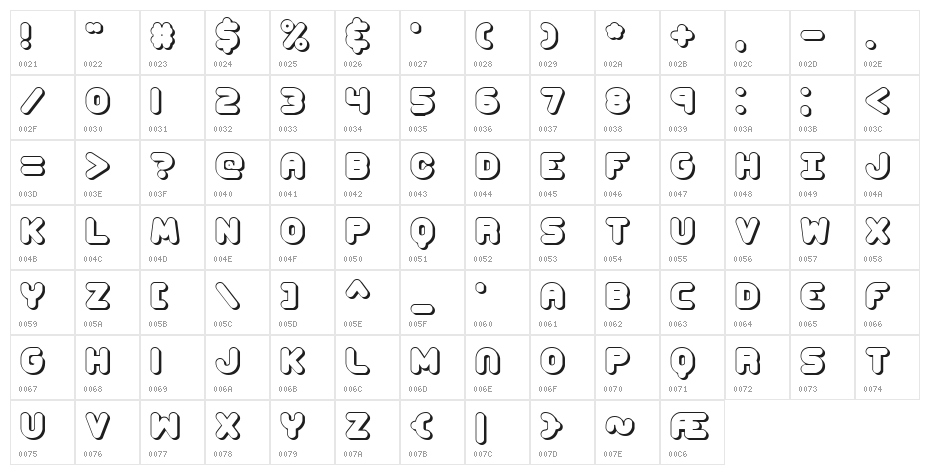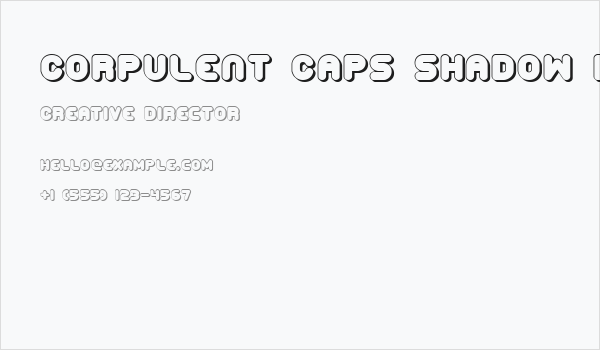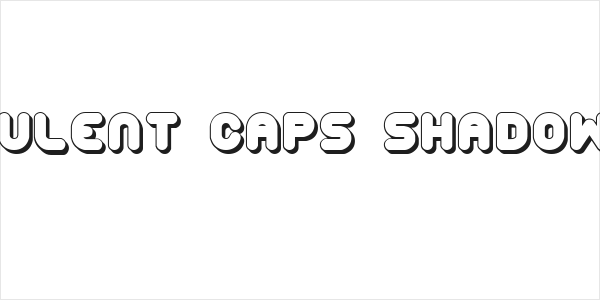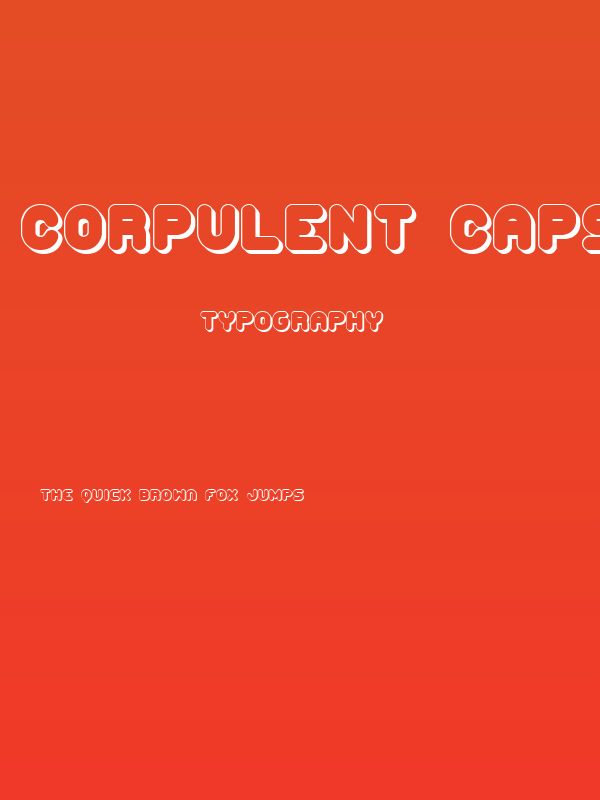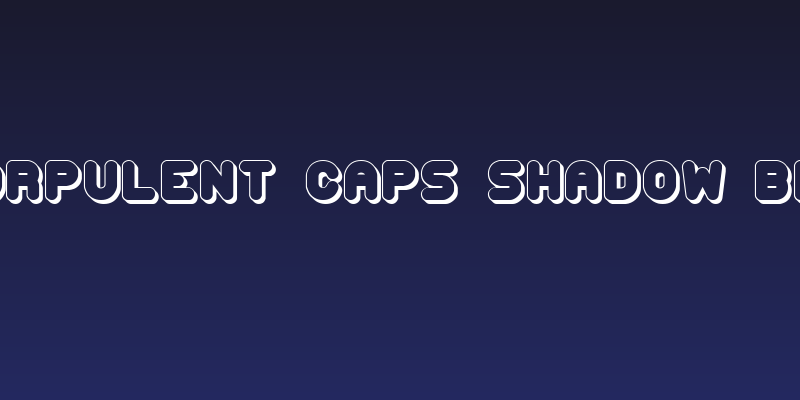
Corpulent Caps Shadow BRK Font
Corpulent Caps Shadow BRK Description
This font features a bold, playful design with a three-dimensional shadow effect that adds depth and character. The letters are rounded and thick, giving a sense of fun and approachability. The shadowing is consistent across all characters, enhancing the visual impact and making the text stand out. The font maintains a uniform thickness throughout, which contributes to its bold appearance. The characters are well-spaced, ensuring readability while maintaining the playful aesthetic. This style is particularly effective for designs that require a strong, eye-catching headline or title.
| Overall Style | Playful, Modern |
| Proposed Projects | Ideal for children's book covers, playful branding, posters, and any design needing a fun, bold headline. |